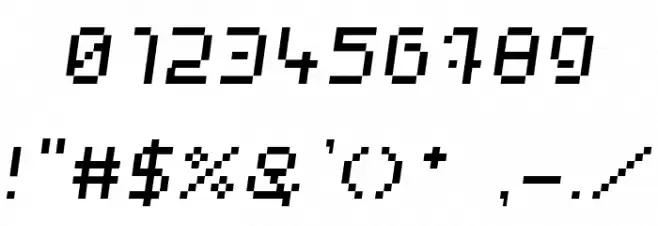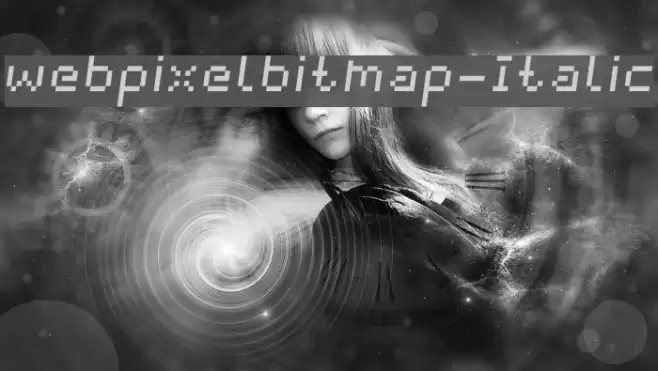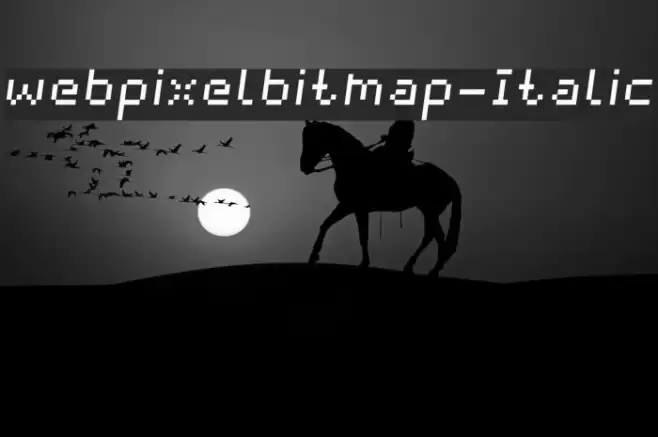
webpixelbitmap-Italic Font
webpixelbitmap-Italic Description
This font features a distinct pixelated design, reminiscent of early digital displays and retro video games. Each character is constructed with a grid-like pattern, giving it a blocky and angular appearance. The italic style adds a dynamic slant to the characters, enhancing their visual interest and movement. The uppercase and lowercase letters maintain a consistent pixelated structure, while the numerals and special characters complement the overall aesthetic. This font is ideal for projects that aim to evoke nostalgia or a tech-inspired theme.
A pixelated, italic font with a retro digital aesthetic from Uncategorized fonts.
- Proposed Projects: Perfect for video game design, retro-themed posters, digital art projects, and tech-related branding.
- Overall Style: Retro, Digital